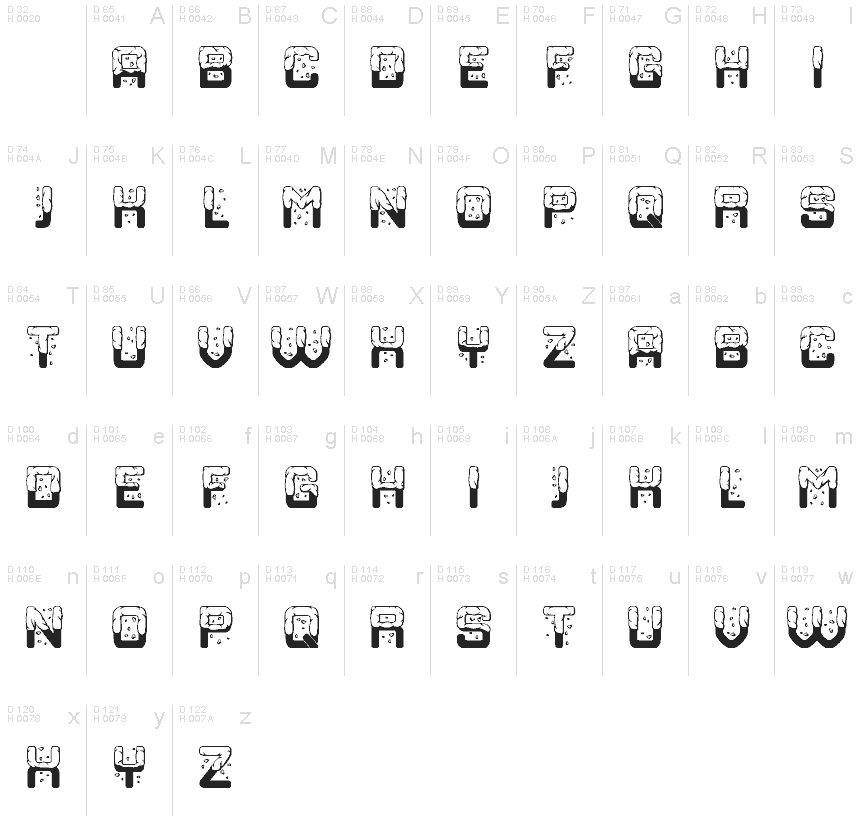
Snow Regular
As you read aloud, Snow the free hand drawn font for professional use. It was designed by Vladimir Nikolic and it can be used for a great variety of creative ideas including book covers, posters and album art. Snow has only uppercase letters, numbers, and punctuation marks with 2 different weights and it is perfect for branding, editorial work, and even packaging design. The unique lettering style and retro feel will definitely bring your projects to the next level.